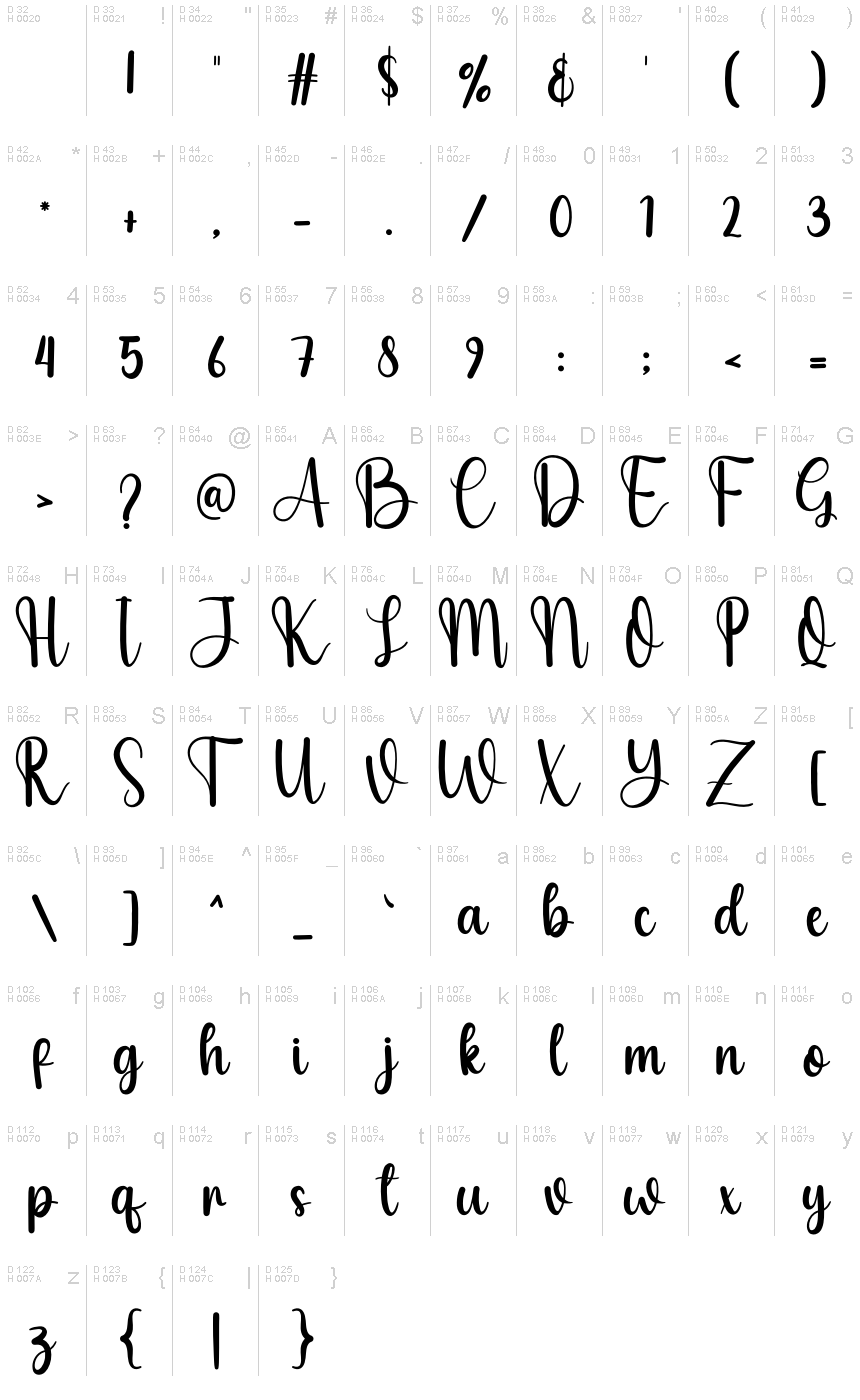
Together Always
Together Always, designed by Scratchones, is a semi-light handwritten font that exudes a personal touch and warmth. Its fluid strokes and subtle irregularities mimic the charm of natural hand script, giving projects an intimate and bespoke feel. The aesthetic appeal lies in its casual elegance, marrying the spontaneity of handwriting with the grace of calligraphy.
This font's versatility shines in applications ranging from wedding invitations to branding materials, where the human touch is desired. Its legibility, combined with a distinct personality, makes Together Always an excellent choice for designers looking to add a heartfelt narrative to their creations. Whether it's for print media or digital interfaces, this typeface invites an element of human connection that resonates with audiences seeking authenticity.